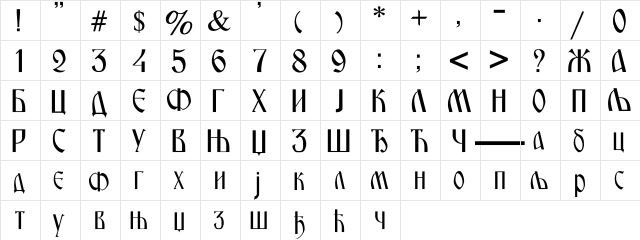
Mirosavljevo-Normal Regular
Design Context for Mirosavljevo-Normal Typeface
Mirosavljevo-Normal is a composed and adaptable typeface that performs quietly and consistently across a wide range of design contexts.